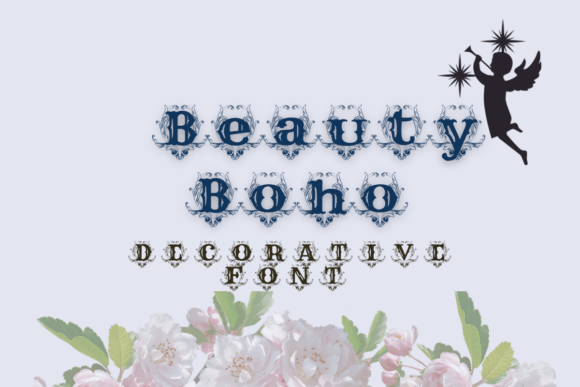
Unleash Your Creativity with the Beauty Boho Font
Have you ever felt the rush of inspiration as you rummage through your art supplies, searching for the perfect combination of colors and textures to bring your creative vision to life? It’s a feeling that’s hard to describe, but it’s one that we’re sure many of you can relate to. For us, it’s a moment when the world seems to slow down, and all that matters is the creative process.
That’s why we’re excited to introduce you to the Beauty Boho Font, a stunning decorative font that’s perfect for taking notes, writing a diary, or making greeting cards. But its uses don’t stop there – this versatile font can also be used for banners, content, mugs, cards, shirts, stationery, social media posts, and more!
For designers, the Beauty Boho Font is a valuable addition to any toolkit. Its unique style and aesthetic can add a touch of personality to any project, making it a must-have for anyone looking to stand out from the crowd.
Beauty Boho Font Key Features
- Font Family: Beauty Boho Font is a unique, hand-drawn font designed to add a bohemian touch to your designs.
- Unique Characteristics: Features intricate, hand-drawn details and subtle imperfections, giving your designs a personal and artisanal feel.
- Character Count: Includes a wide range of characters, including uppercase and lowercase letters, numbers, and punctuation marks.
Beauty Boho Font Review
I recently had the chance to work with the “Beauty Boho Font” and overall, I was pleasantly surprised. ✨ The font’s unique, bohemian-inspired design adds a touch of elegance and whimsy to any project. The subtle curves and ornate details make it perfect for creating a romantic, vintage vibe.
Here are some of the things that I think work well with this font:
- ✨ Unique and eclectic design that sets it apart from more generic fonts
- ✨ Excellent for creating a bohemian, vintage aesthetic
- ✨ Easy to read, even at smaller font sizes
- ⚠️ Limited character set, which may require additional fonts for full support
- ⚠️ May not be suitable for projects that require a more modern or minimalist look
Overall, I think the “Beauty Boho Font” is a great choice for designers looking to add a touch of personality and flair to their projects. While it may not be the best fit for every project, it’s definitely worth considering for those looking to create a unique and eye-catching design.
Tips for Getting the Most Out of Beauty Boho Font
For best results, pair Beauty Boho Font with a neutral background and bold, contrasting colors. You can also use the font in combination with other decorative fonts to add visual interest to your design.
Beauty Boho Font is ideal for use in creative projects, such as:
- Food and lifestyle blogs
- Wellness and self-care branding
- Travel and adventure marketing materials
Alternatives to Beauty Boho Font
Great Vibes is a modern script font that resembles a handwritten style. It’s ideal for creating a relaxed and casual atmosphere, making it perfect for designs related to fashion, travel, or wellness. Compared to Beauty Boho Font, Great Vibes has a more refined and polished look, making it suitable for a wider range of applications.
Carolyna Pro is a elegant script font with a touch of sophistication. It’s perfect for high-end designs, such as luxury branding, fine art, or premium products. Unlike Beauty Boho Font, Carolyna Pro has a more refined and precise feel, making it suitable for designs that require a sense of luxury and elegance.
Alex Brush is a beautiful script font that combines elegance and playfulness. It’s ideal for designs related to art, literature, or education. Compared to Beauty Boho Font, Alex Brush has a more subtle and refined look, making it perfect for designs that require a sense of sophistication and refinement.